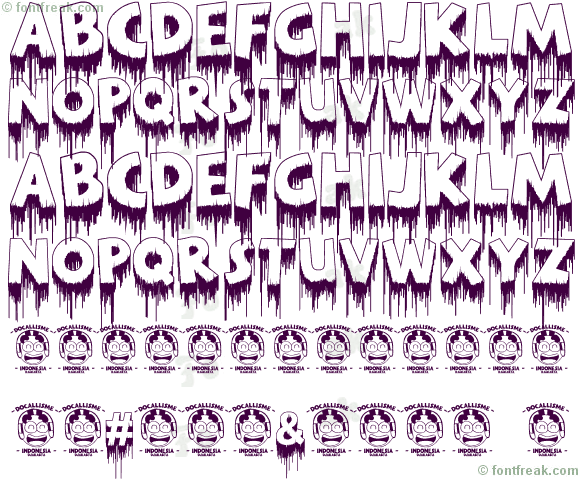
MERDEKA
Merdeka by Docallisme HAS is an eye-catching display font that captures attention with its unique and bold character. This font features distinct stroke weights and a dripping effect that adds a sense of dynamism and energy. The visual characteristics include uneven line thickness, which creates an engaging contrast, and a playful spacing that contributes to its overall impact. The decorative elements are striking, giving the font a graffiti-like style that is both modern and artistic.
This font is ideal for a variety of creative applications. It works exceptionally well for movie posters where a vibrant, urban aesthetic is required, grabbing the viewer's attention with its bold presence. Additionally, Merdeka is perfect for music event promotions, capturing the spirit of underground culture and excitement. It can also enhance restaurant menus, particularly those that want to convey a trendy, casual vibe. For graphic designers looking to make a statement in branding projects, Merdeka provides a distinctive touch to logos and marketing materials. Content creators can also use it in social media graphics to create striking visuals that stand out in crowded feeds.
The target audience for the Merdeka font includes graphic designers, small business owners, and content creators who are looking to elevate their projects with a unique typeface. This font's free availability makes it an attractive option for those on a budget, allowing for creative freedom without financial constraints.
What sets the Merdeka font apart is its bold personality and versatility. Its unique style not only makes it a great choice for standout designs but also ensures that your projects resonate with a contemporary audience. With the MERDEKA font free download, you can incorporate this striking typeface into your creative endeavors today.